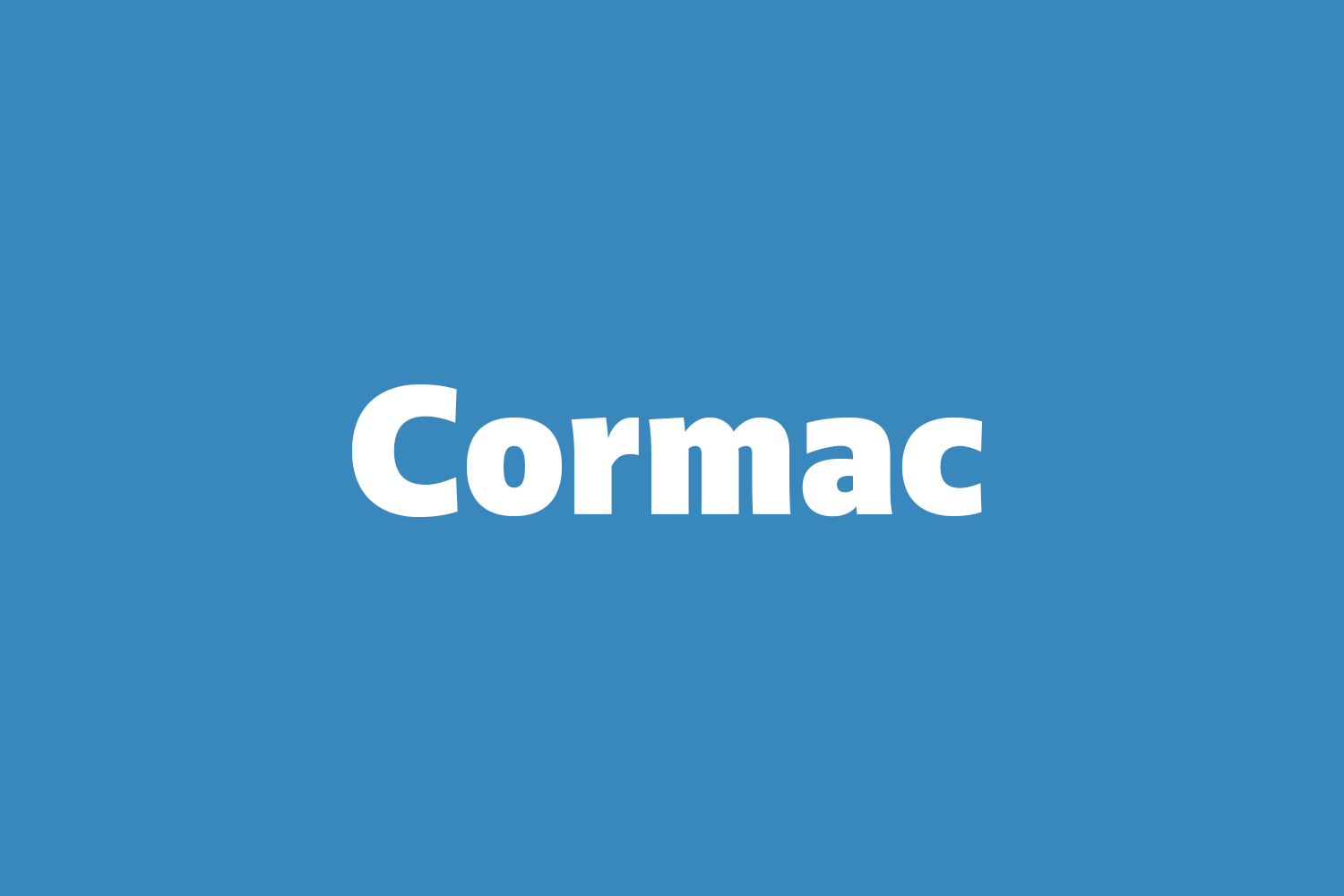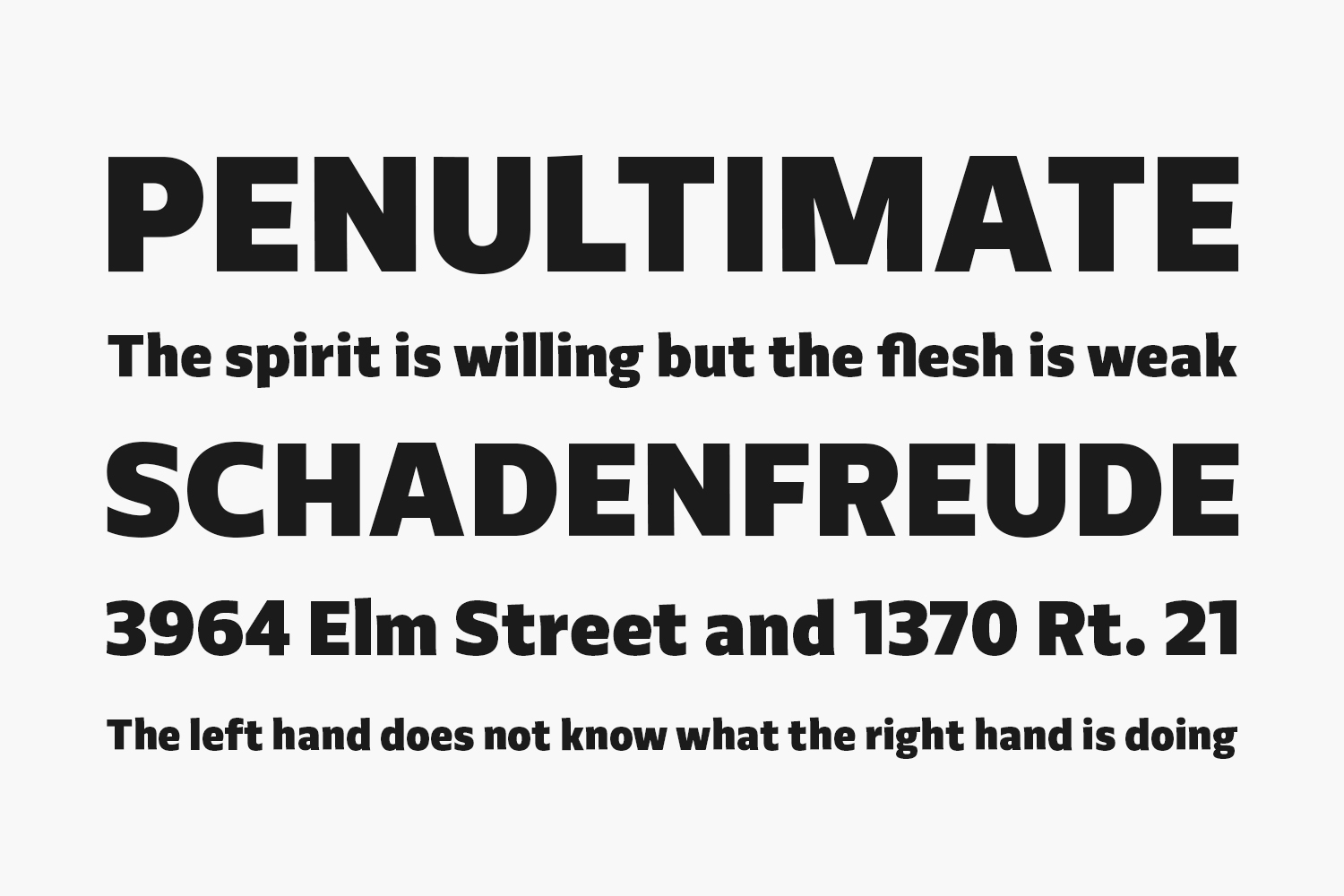
Cormac Free Font Family is a humanist typeface characterized with it’s large x-height and slightly flared stems. The word that best describes our ideas in the beginning of the project is “simple” – the idea behind it was to strip the letter forms of everything unnecessary, and yet keep the typeface interesting.
The typeface is friendly without being too cheezy thanks to its humanistic character, flared ascenders and stems reminding of its calligraphic origin. The proportions are closer to the traditional old style typefaces. Cormac is open and readable typeface coming in 7 weights plus their matching ‘true’ italics – from Extra Thin to Bold.
The family comes with Cyrillic support, great range of numerals, fractions, ligatures, alternates and a lot of special characters making Cormac a great solution for a great range of design work – branding, editorial, web, wayfinding, etc.